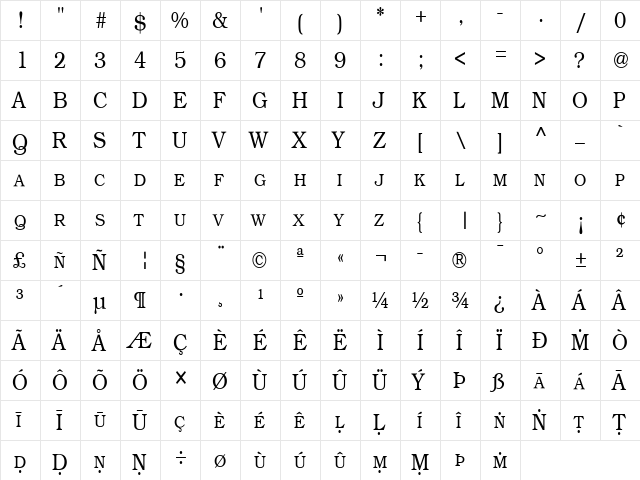
Pali Bookman SmCps Cond Regular
Design Context for Pali Bookman SmCps Cond Typeface
Pali Bookman SmCps Cond is a composed and adaptable typeface that performs quietly and consistently across a wide range of design contexts. Its narrow stance lets it pack a punch even in space-constrained designs.